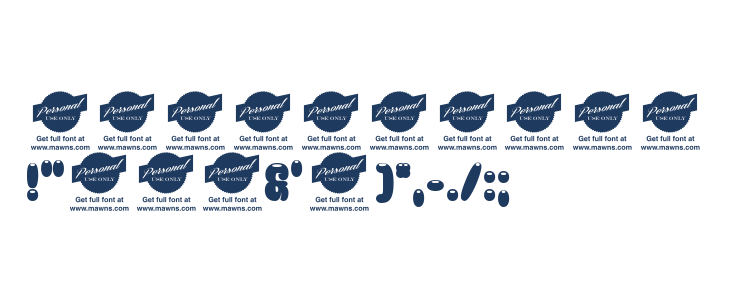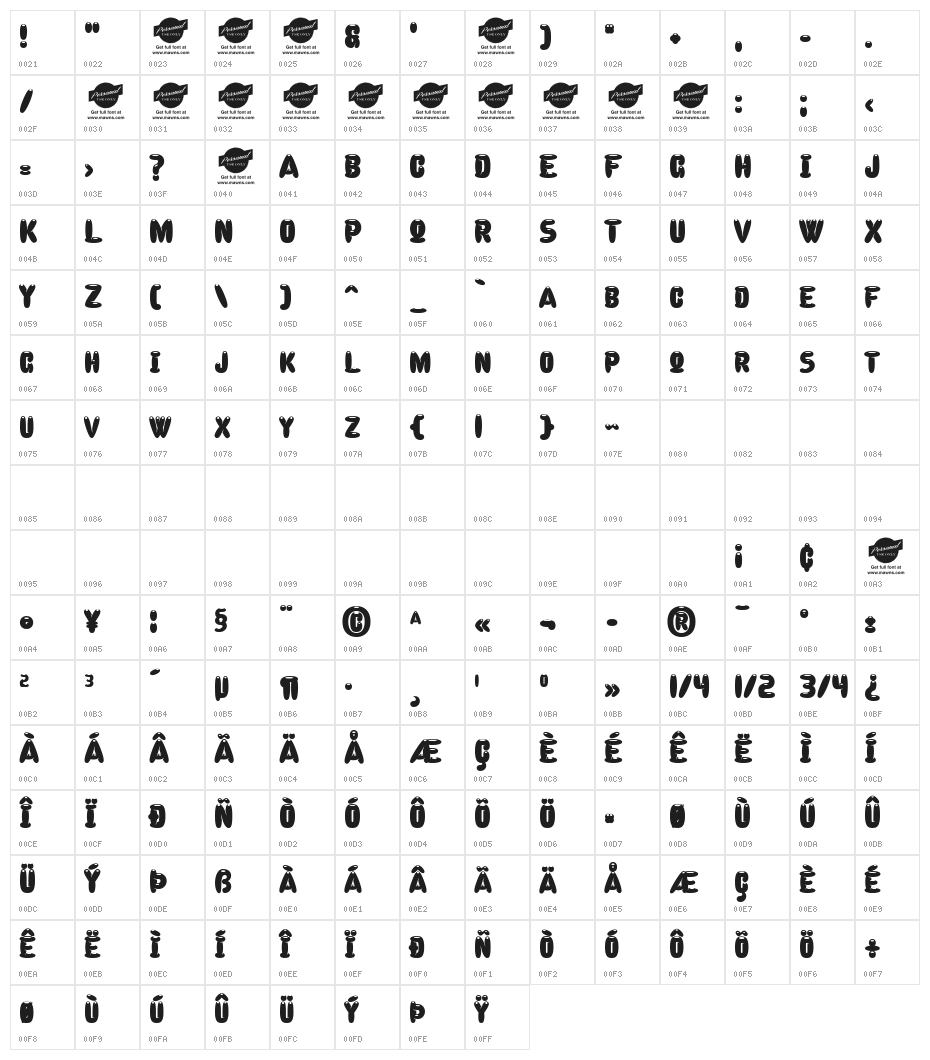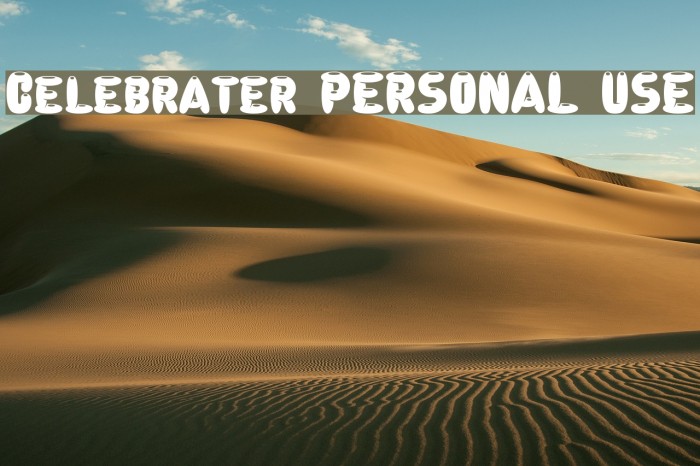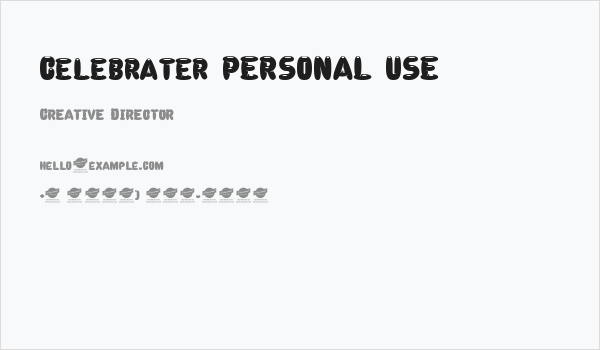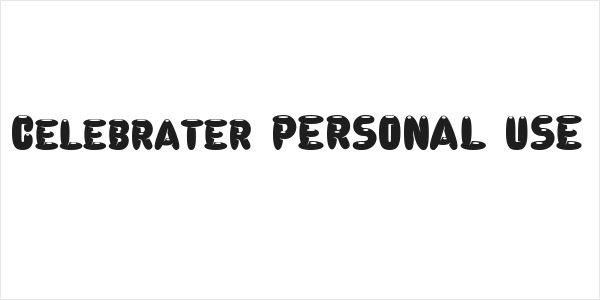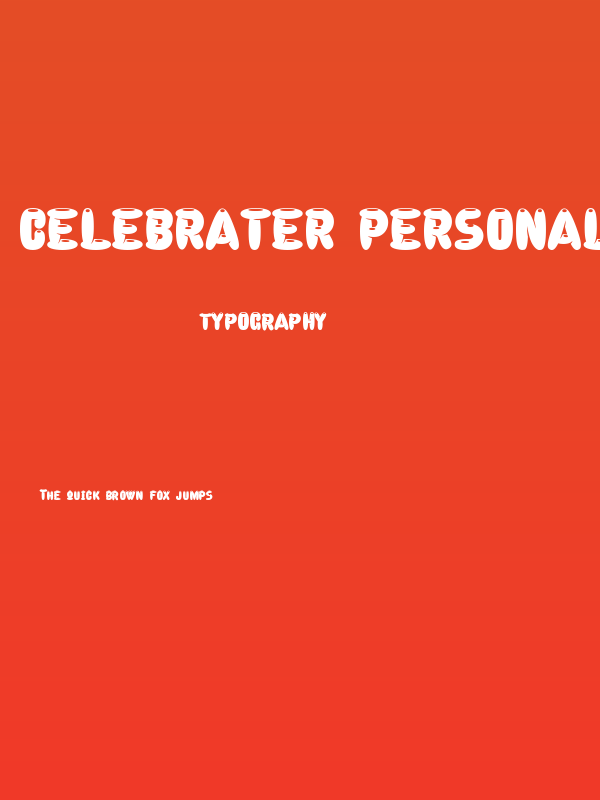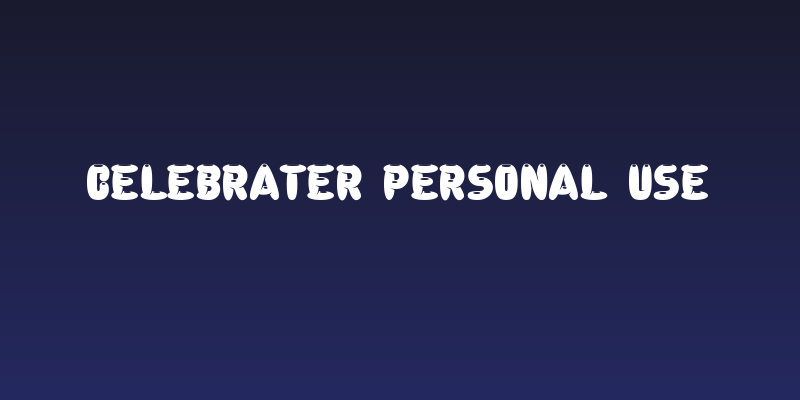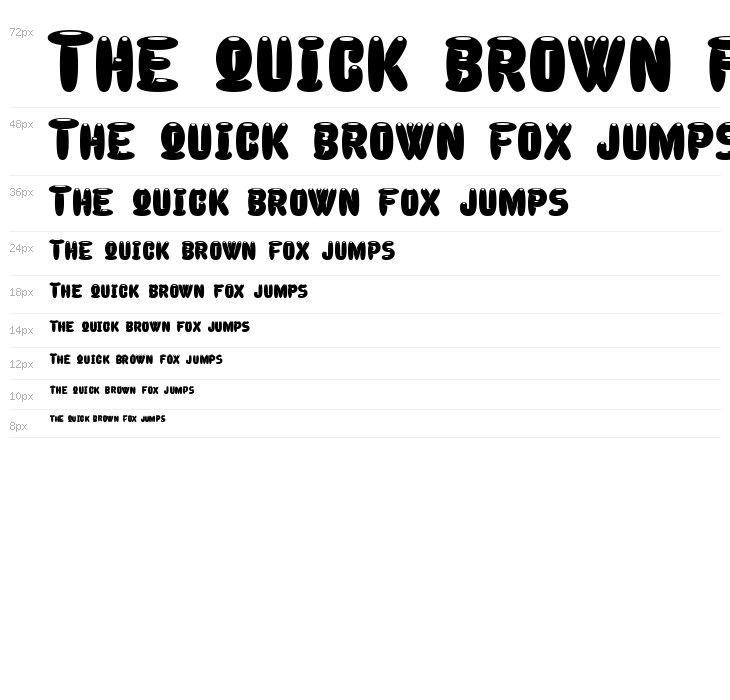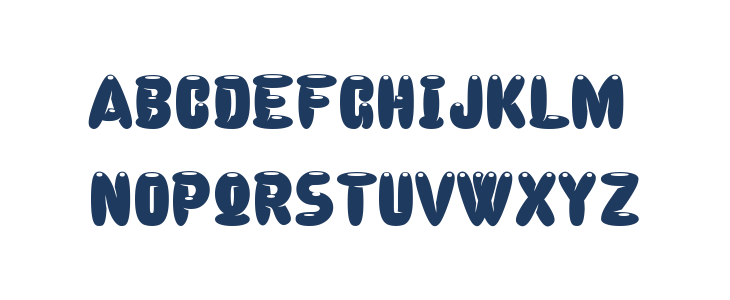
Celebrater PERSONAL USE Font
Celebrater PERSONAL USE Description
This font features a bold and playful design with thick, rounded strokes and a unique, bubbly appearance. The characters have a distinct, cartoon-like quality, making them stand out with their exaggerated forms and whimsical style. The uppercase and lowercase letters maintain a consistent weight, contributing to the font's cohesive look. The numbers and special characters are designed with the same playful aesthetic, ensuring uniformity across all glyphs. This font is perfect for projects that require a fun and lively touch, such as children's books, party invitations, or playful branding.
| Proposed Projects | Ideal for children's books, party invitations, playful branding, and any project needing a fun, lively touch. |